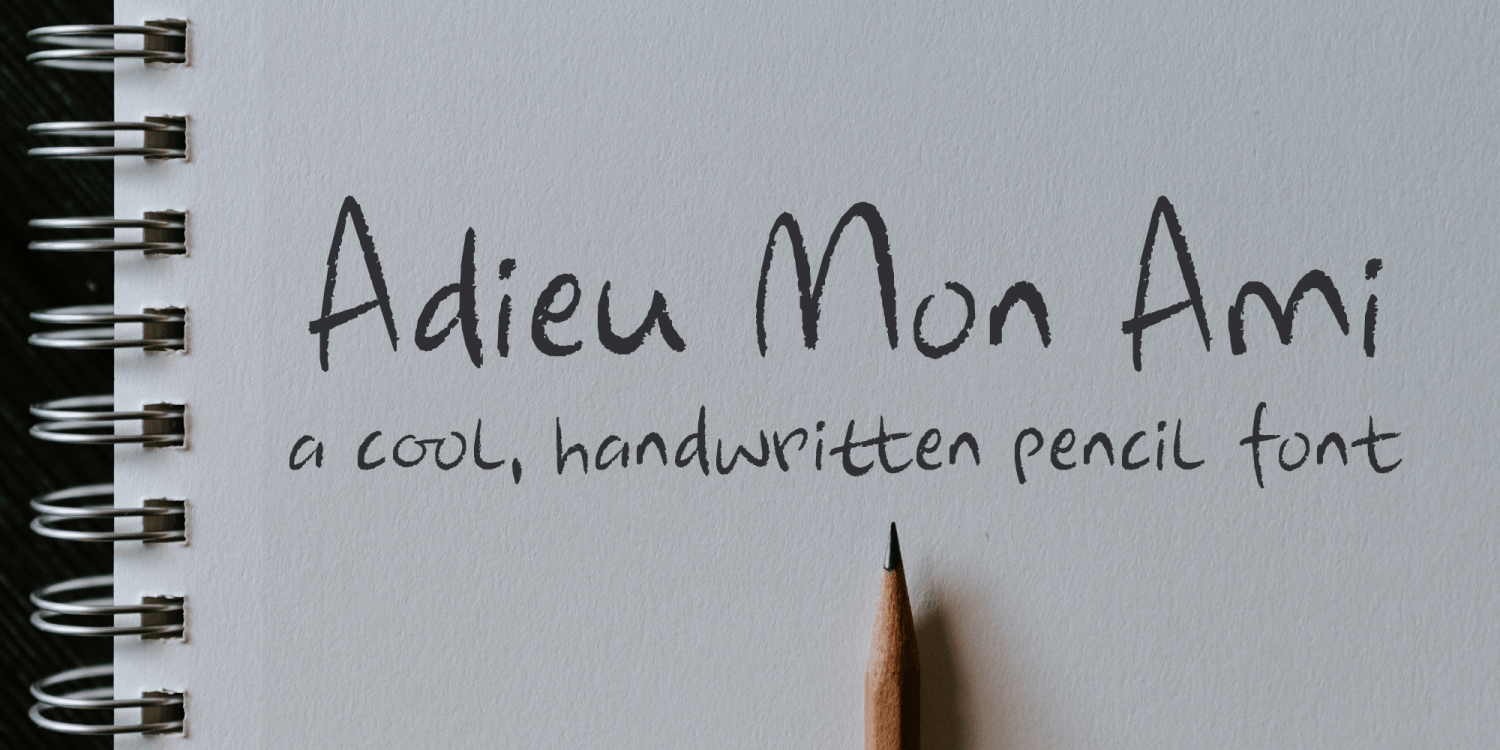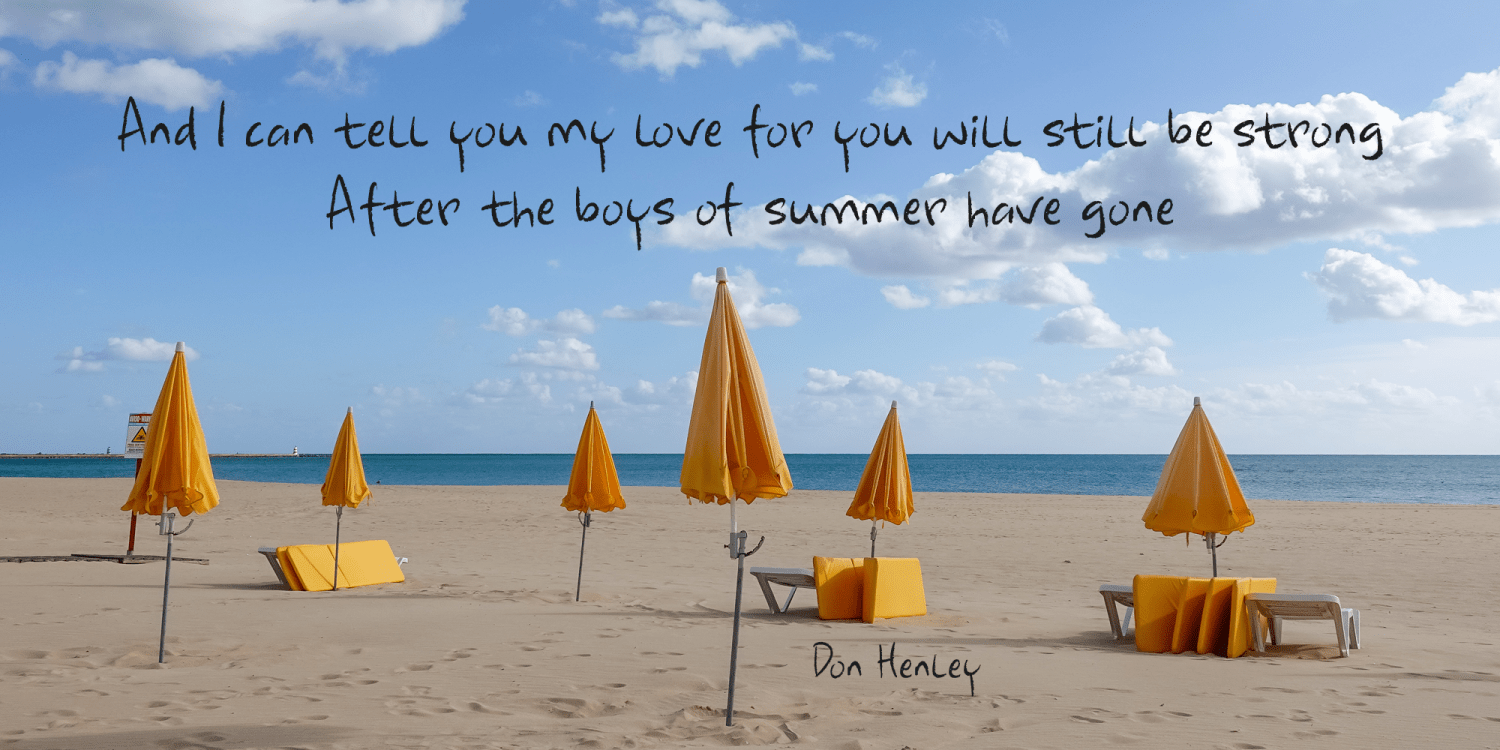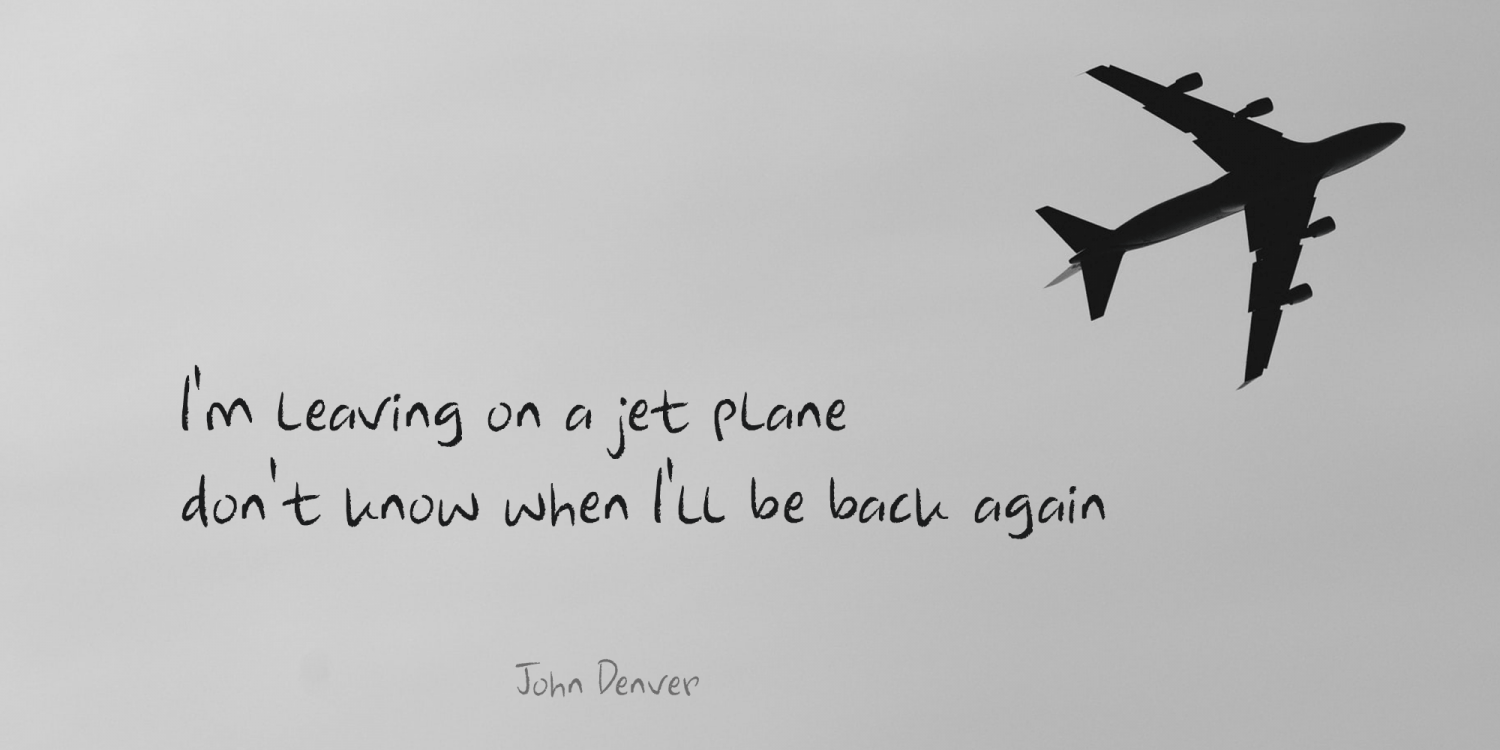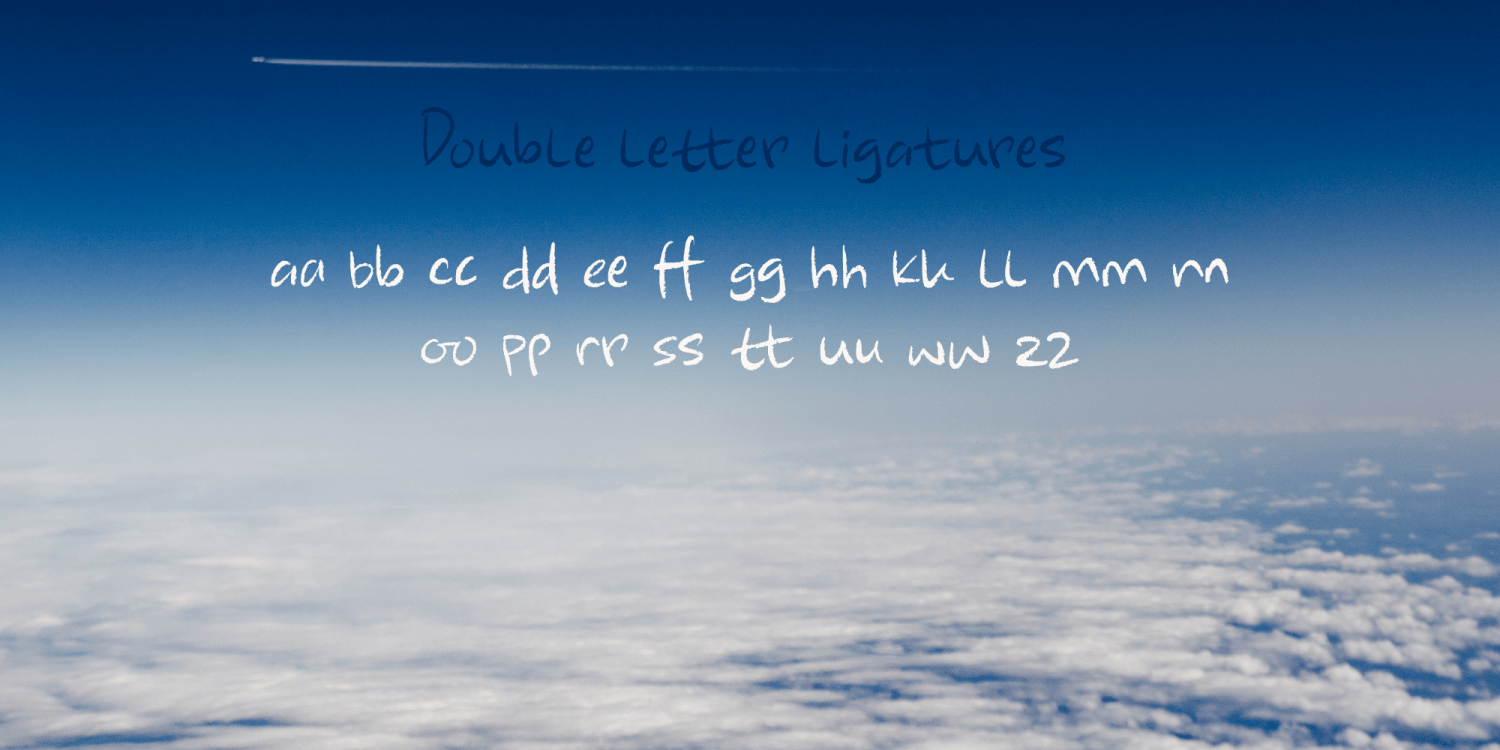
Adieu Mon Ami
No, I am not leaving and none of my friends or relatives have packed up and left. I needed a more ?letter-like? name for this font and I found Adieu Mon Ami (farewell, my friend in French).
Adieu Mon Ami is a handmade pencil font that will add that extra ?je ne sais quoi? to your designs. It comes with joie de vivre, un petit peu de vilain, but can be doux comme de la soie as well.